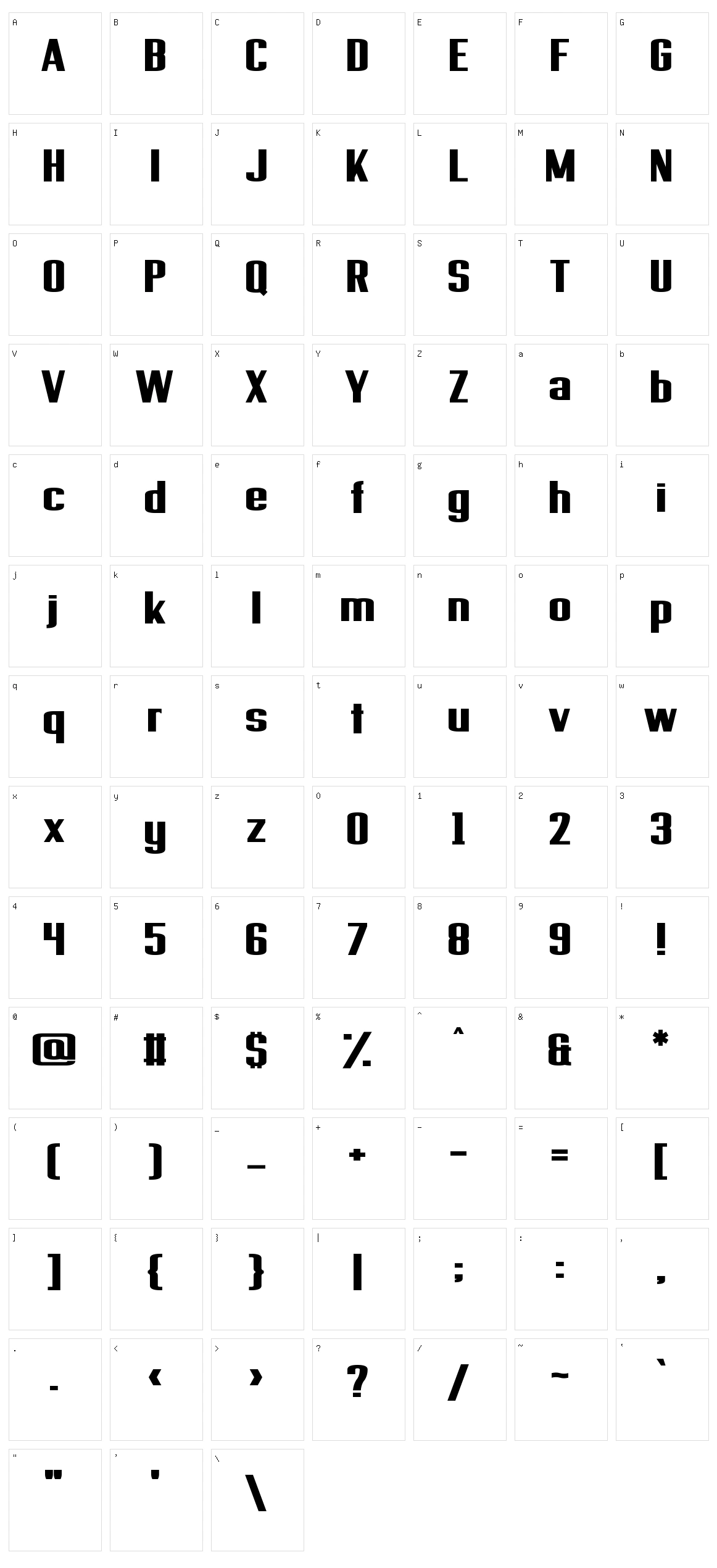
The free font Provisionary is carefully designed by Chequered Ink, showcasing a thoughtful balance of creativity and usability and falls under the Sans serif font style. When you download the ZIP file, it contains only 12.42 KB of font files, making it lightweight and quick to download. Please review the license details below to understand permitted usage and distribution rights. If license information is not available, we recommend using this font for personal projects only or contacting the author directly for commercial usage permissions.